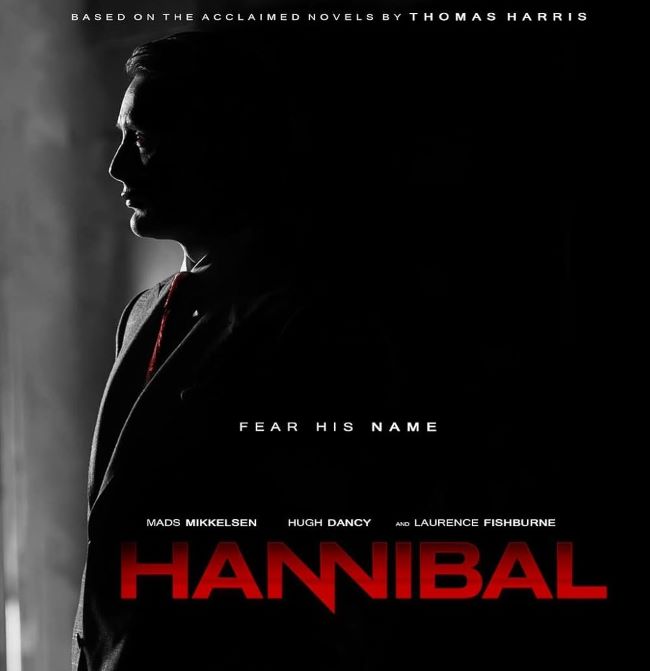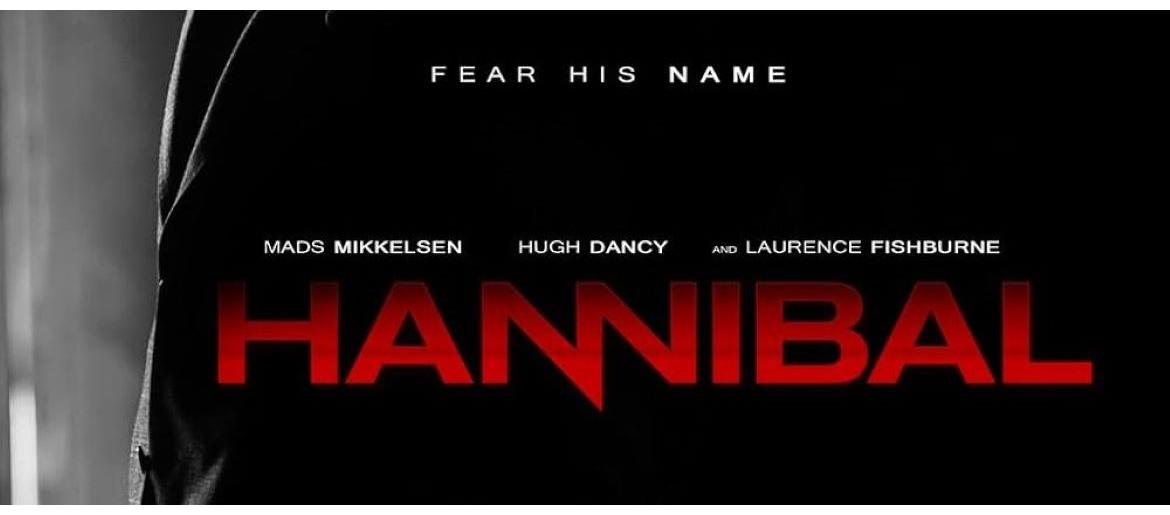
Hannibal Font
The Hannibal font exudes chilling sophistication, blending sharp serif details with a quiet, refined elegance. Its precise letterforms and subtle spacing convey both beauty and menace, reflecting the dark, psychological complexity of the Hannibal series. This typeface is perfect for layouts that aim to be strikingly stylish while maintaining an unsettling, elegant edge.
When paired with deep reds, blacks, or muted grays, the font’s sinister charm is amplified, making text feel both luxurious and menacing. Its understated confidence creates tension and intrigue without needing to be overtly aggressive.
Hannibal TV Series
The series Hannibal follows FBI investigator Will Graham and the brilliant yet terrifying Dr. Hannibal Lecter. Much like the font, the show is elegant, psychological, and unforgettableācapturing beauty while hinting at darkness beneath the surface.